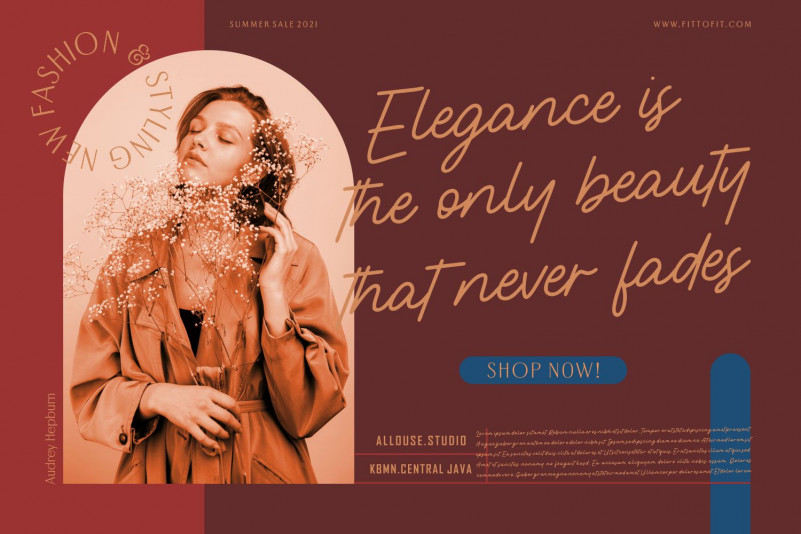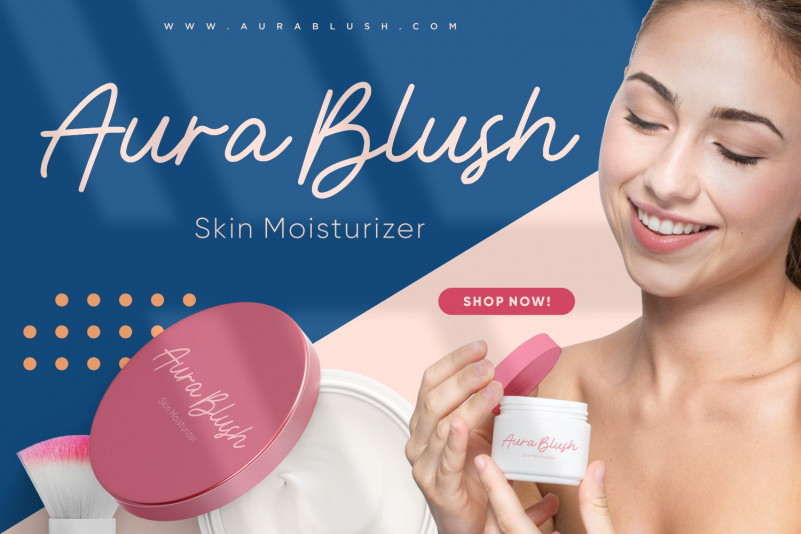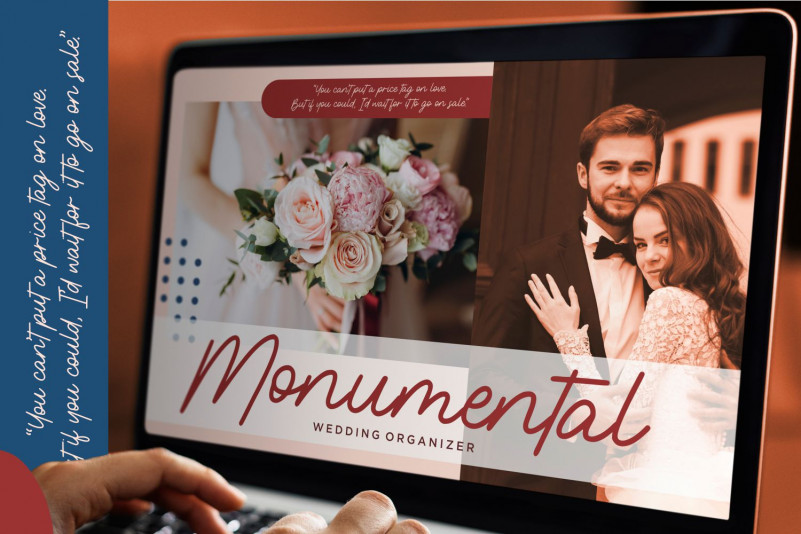
Raya Feast Font
Raya Feast Handwritten Font
This is a stylish and elegant handwritten font. It looks beautiful on a variety of designs requiring a personalized style, such as wedding invitations, thank you cards, weddings, greeting cards, logos and so on.